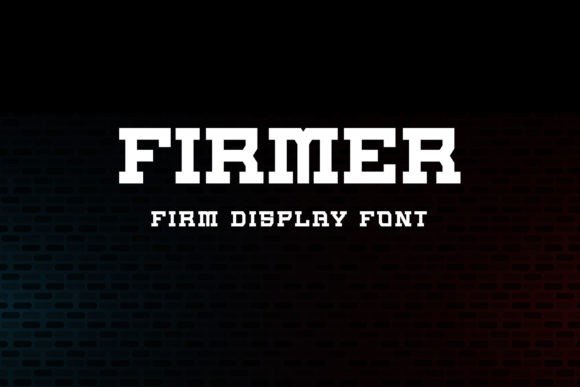
Prepare yourself to be mesmerized by Firmer Font, a striking display font that exudes modernity and clarity. This typographic masterpiece is not just a font; it's an artistic gateway to captivating designs that will leave an everlasting impression. Unleash your creativity and let Firmer Font ignite your imagination.
With its bold and confident strokes, Firmer Font commands attention effortlessly. Each character is meticulously crafted to deliver maximum impact, making it the perfect choice for posters, cards, book titles, headlines, news, banners, flyers, stationery, and much more.
Imagine the allure of your posters, the intrigue of your cards, the impact of your book titles, the authority of your headlines, the immediacy of news, the vibrancy of banners, the magnetism of flyers, the sophistication of stationery, and the endless possibilities that await you with Firmer Font.
But Firmer Font is more than just a versatile font; it's an emotion, a feeling, a connection. Its clean lines and sharp edges evoke a sense of power and confidence, while its subtle curves add a touch of elegance and grace. This unique blend of strength and finesse makes Firmer Font an ideal choice for expressing yourself boldly and unforgettably.